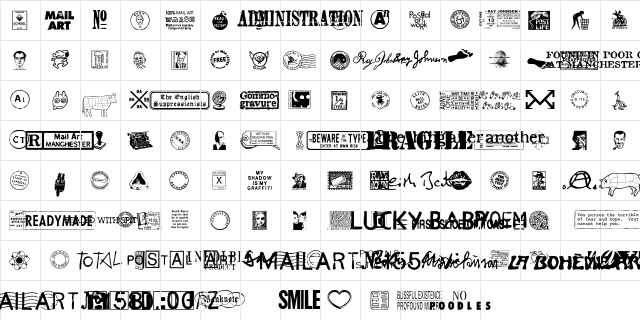
MA Graphics
Design Context for MA Typeface
MA is a composed and adaptable typeface that performs quietly and consistently across a wide range of design contexts.